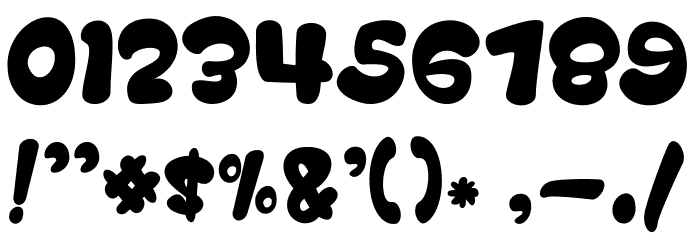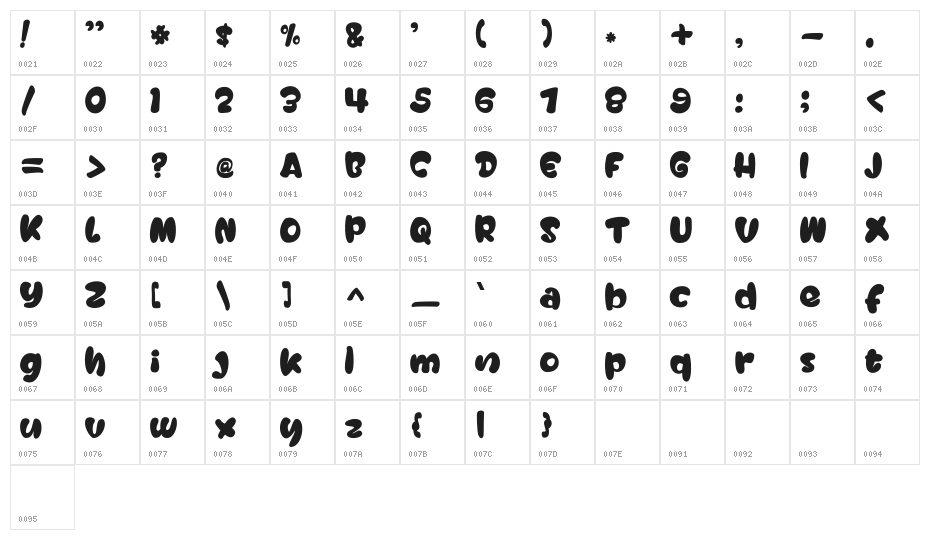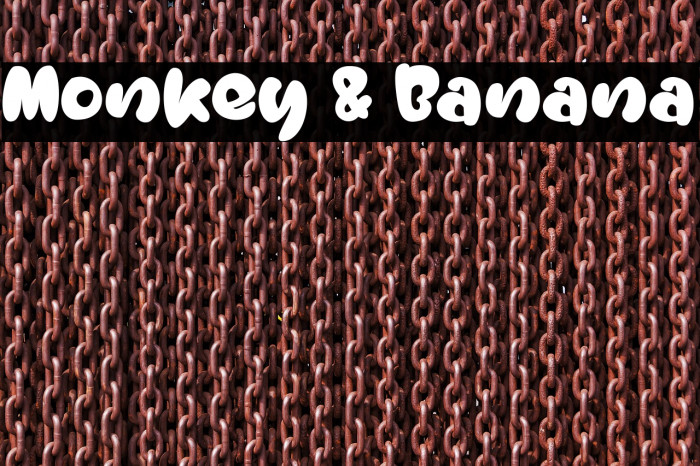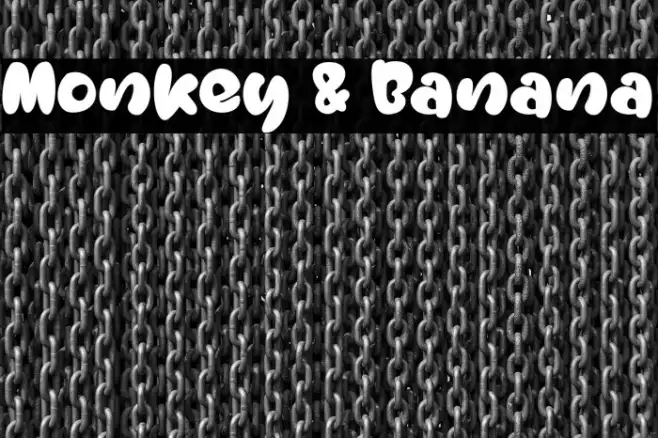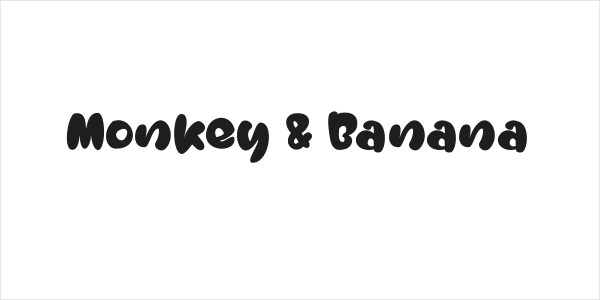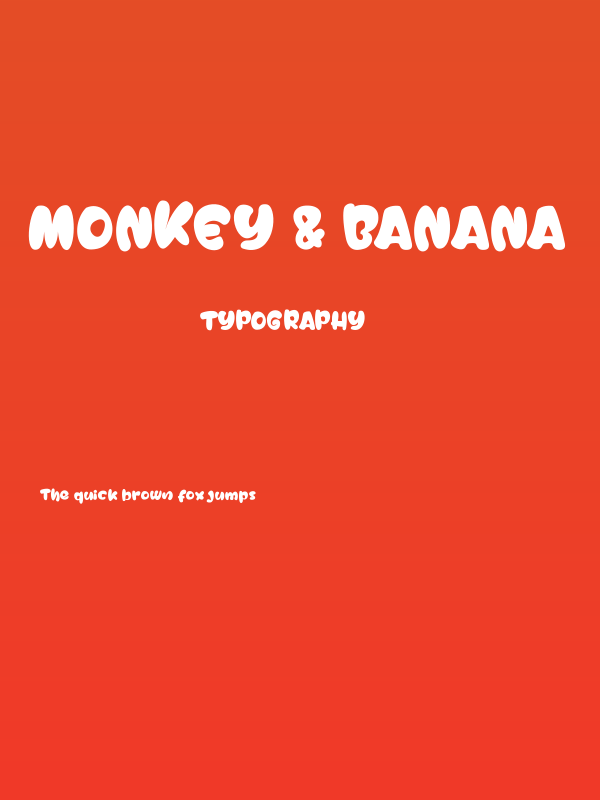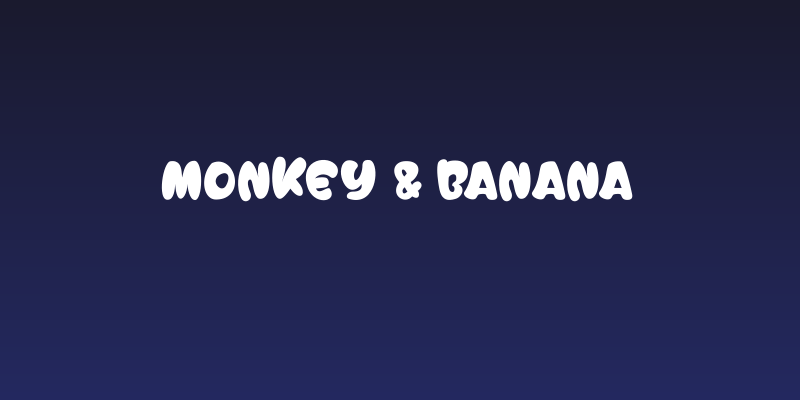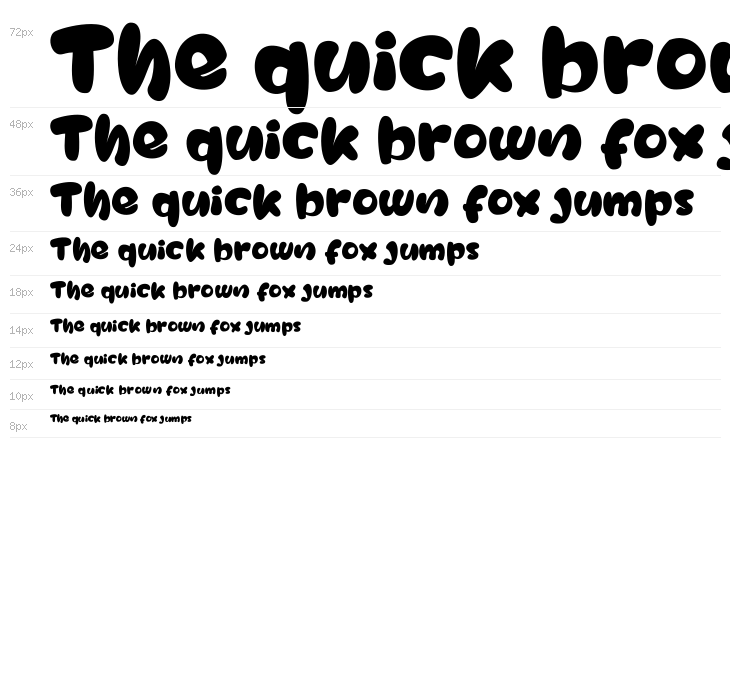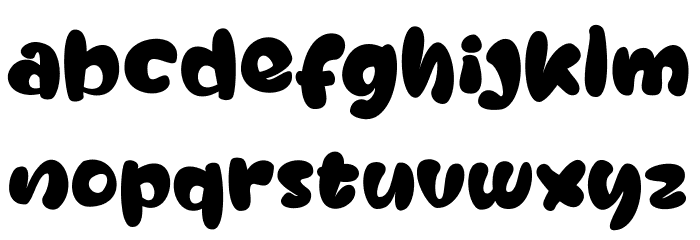
Monkey & Banana Font
Monkey & Banana Description
This playful and bold font features thick, rounded characters that exude a sense of fun and whimsy. The letters are uniformly bold, with a consistent stroke width that gives them a solid and substantial appearance. The rounded edges and bubbly forms contribute to a friendly and approachable aesthetic, making it ideal for projects that aim to convey a lighthearted and cheerful tone. The font maintains a consistent height across both uppercase and lowercase letters, ensuring readability while adding a touch of uniqueness with its slightly exaggerated curves. The numerals and special characters follow the same design principles, ensuring a cohesive look throughout.
| Proposed Projects | Ideal for children's books, playful branding, party invitations, and fun social media graphics. |